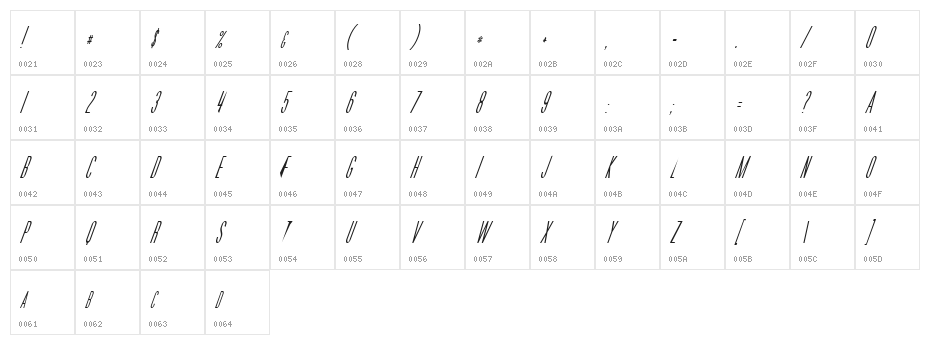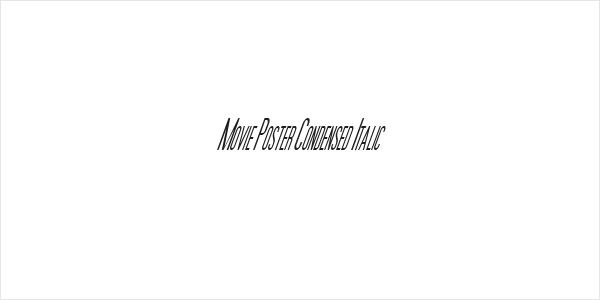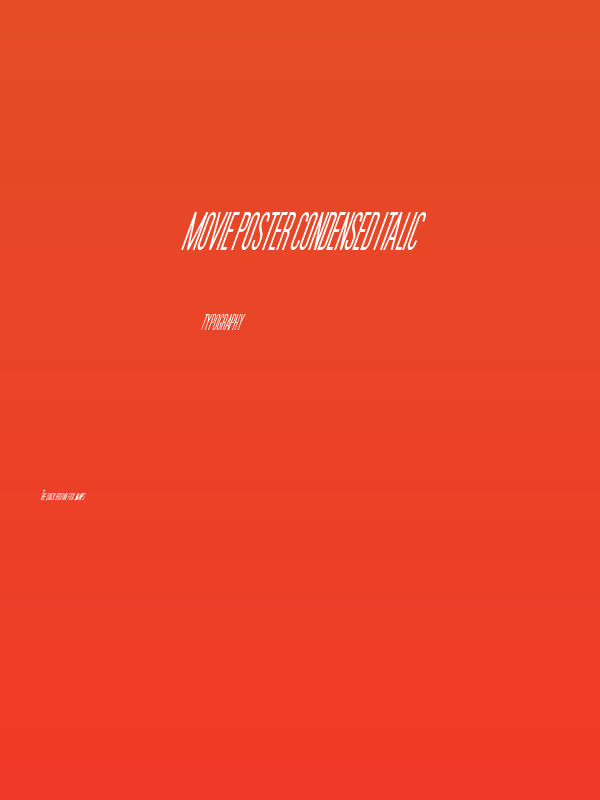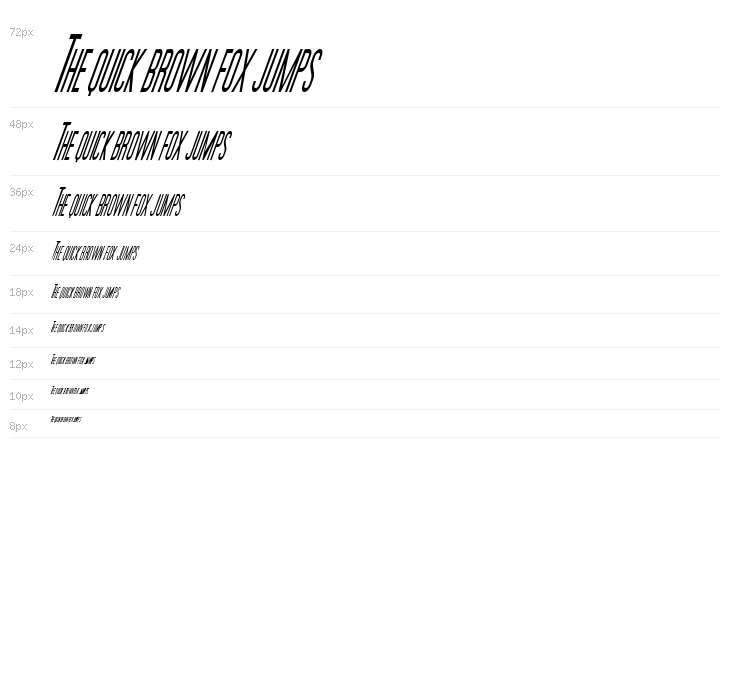
Movie Poster Condensed Italic Font
Movie Poster Condensed Italic Description
This font features a condensed and italicized style, characterized by its tall, narrow letterforms and dynamic slant. The uppercase and lowercase letters maintain a consistent height, contributing to a sleek and streamlined appearance. The numerals are similarly elongated, enhancing the font's modern and sophisticated look. Special characters are included, offering versatility for various design needs. The font's overall aesthetic is bold and impactful, making it ideal for attention-grabbing headlines and titles.
Proposed ProjectsIdeal for movie posters, advertising campaigns, and dynamic branding projects.